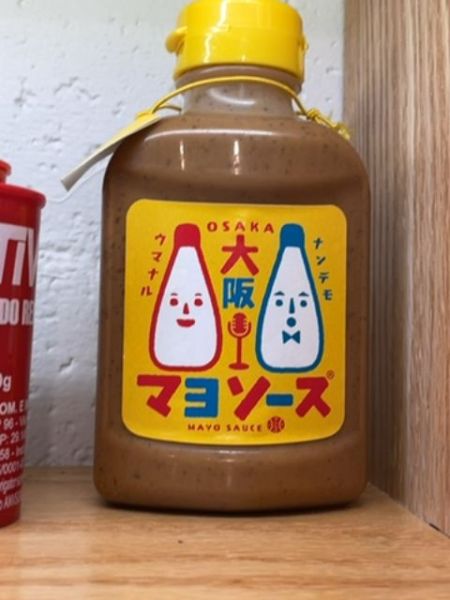
Osaka Mayo Sauce
A savory condiment used to enhance the flavor of various dishes. It is typically creamy and tangy, suitable for salads, sandwiches, and as a dipping sauce.
The typography on the label uses bold, playful characters with a rounded, friendly design. The mix of Japanese and English text is clear and approachable, with the large, blocky red characters providing a sense of fun and charm. The font has a distinctly modern yet nostalgic appeal, likely reflecting Japanese pop culture influences.
The packaging is a brown bottle with a yellow label featuring cute, cartoon-like faces of mayonnaise bottles. The bright yellow cap and label draw attention, and the use of red and blue adds vibrant contrast against the neutral background.
- Osaka Mayo Sauce is inspired by traditional Japanese flavors.
- It is known for its creamy texture and tangy taste.
- Popularly used in Japanese households for a variety of dishes.